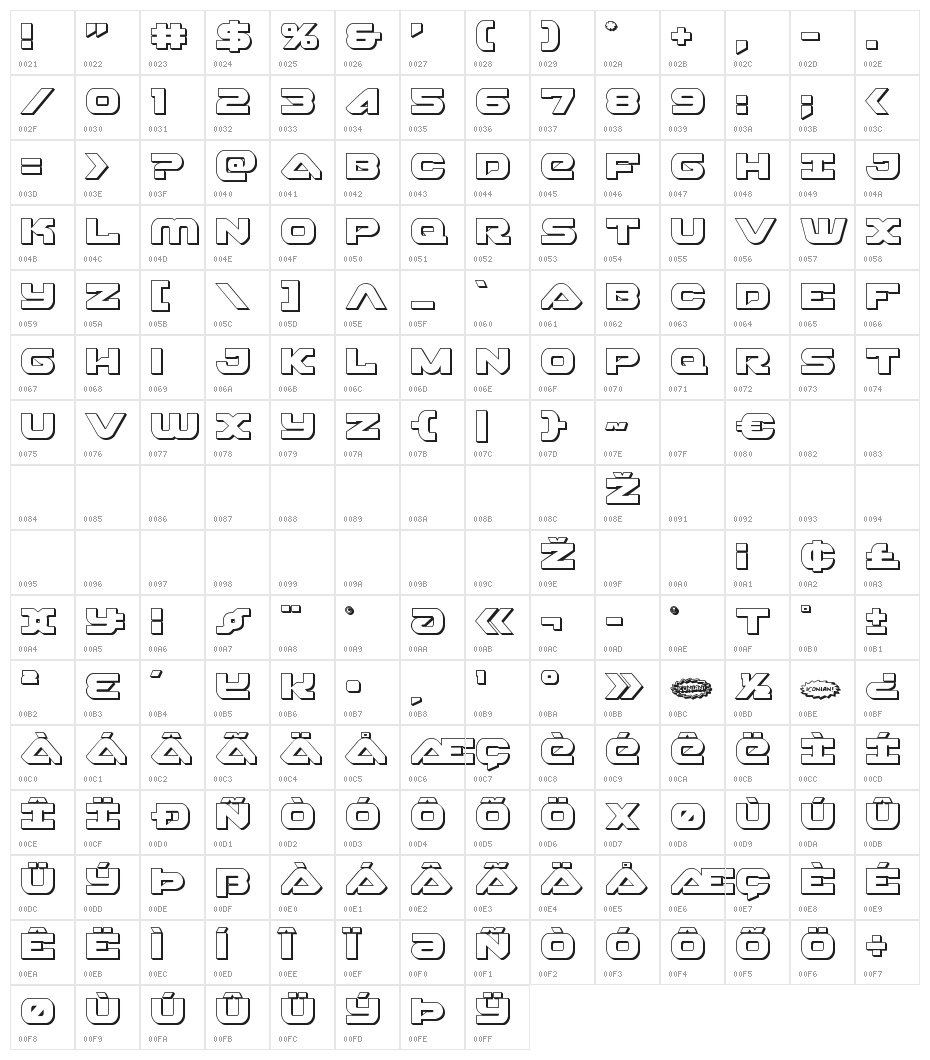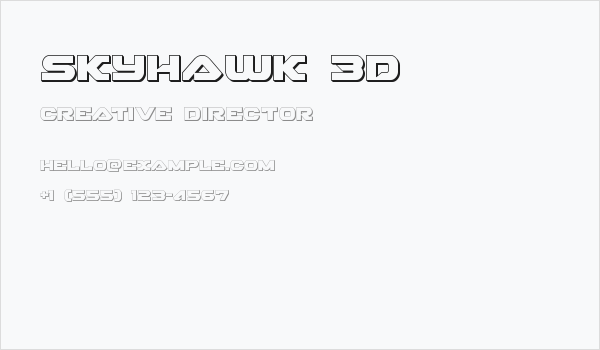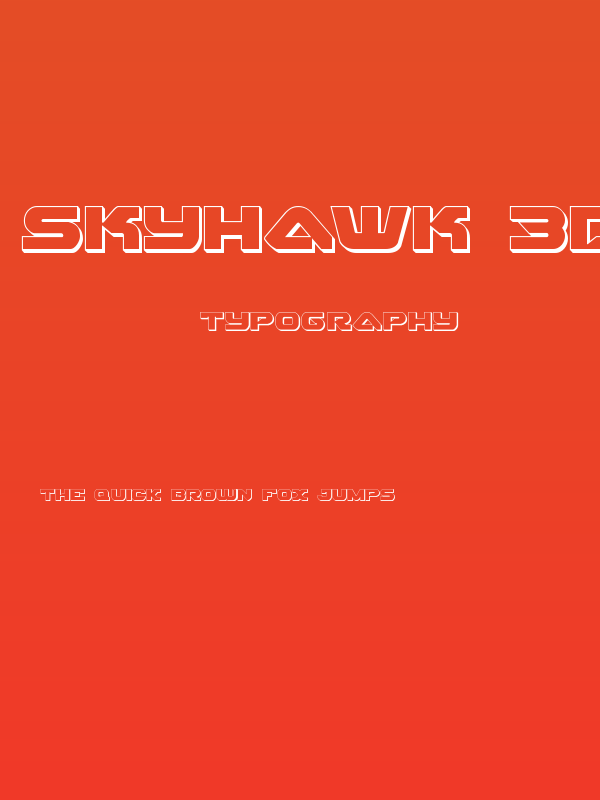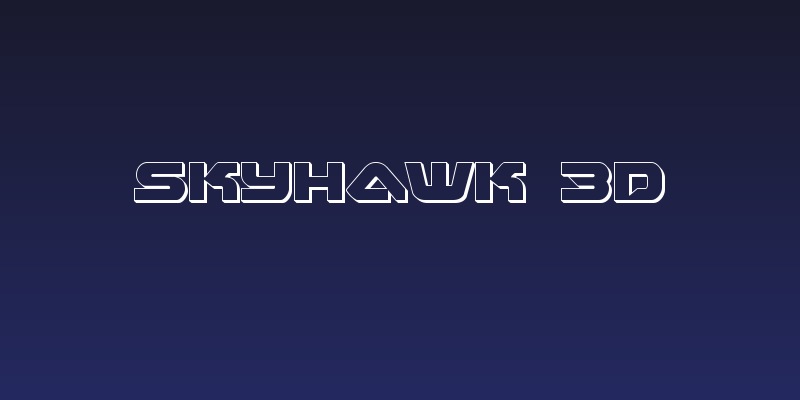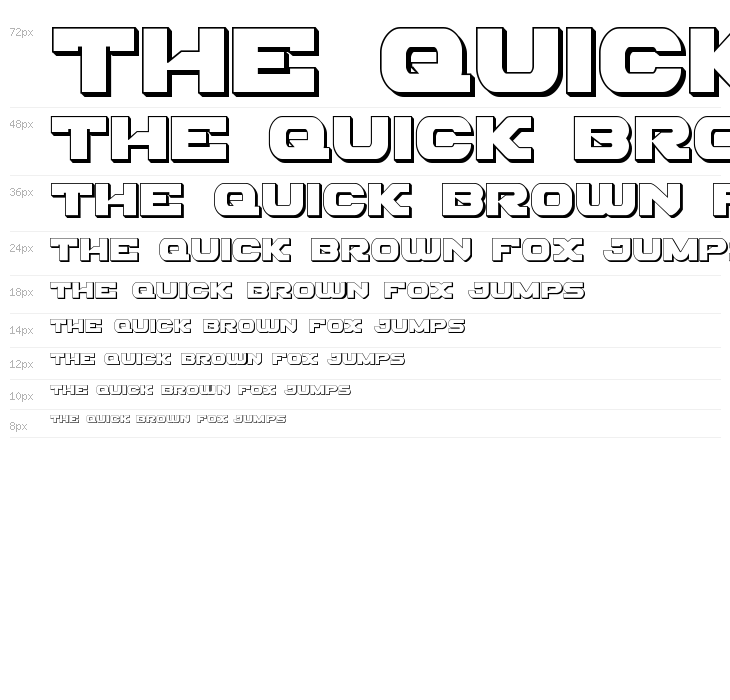
Skyhawk 3D Font
Skyhawk 3D Description
This font features a bold, three-dimensional design with a futuristic and geometric aesthetic. The characters are outlined, giving them a hollow appearance that enhances the 3D effect. Each letter and number is constructed with sharp angles and clean lines, creating a sense of depth and structure. The uppercase letters are particularly striking, with a uniform height and width that contribute to a cohesive look. The font includes a full set of uppercase letters, numbers, and a variety of special characters, making it versatile for different design needs. Its unique style is ideal for projects that require a modern and eye-catching typeface.
| Proposed Projects | Ideal for sci-fi themed posters, video game titles, technology branding, and modern advertising. |